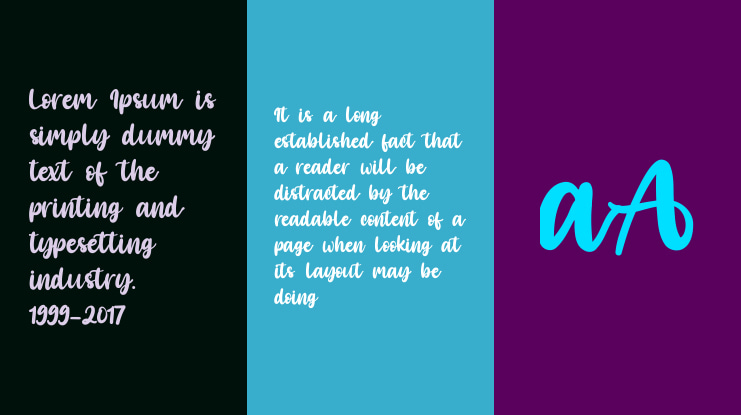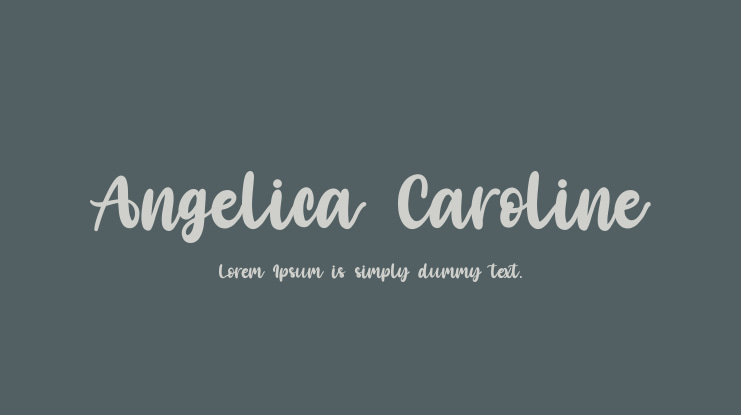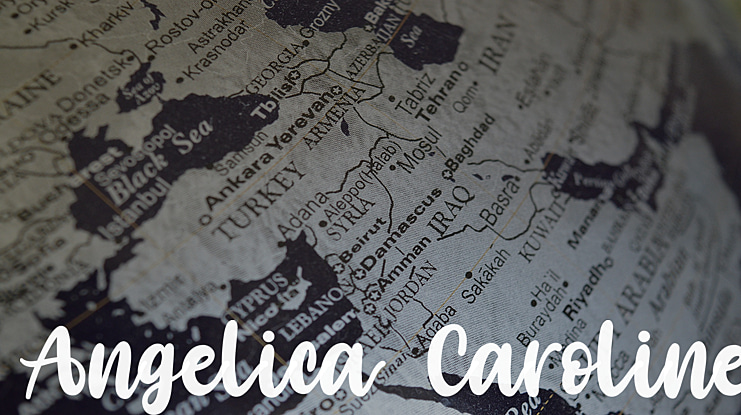
Angelica Caroline Font Family
Angelica Caroline Handwritten Typeface. A collection of letters and numbers suitable your projects also great for Logotype, Branding Design, Logo Design, Digital Lettering Arts, T-Shirt/Apparel, Poster, Magazine, Signs, Advertising Design, and any design needs.
Angelica Caroline font preview